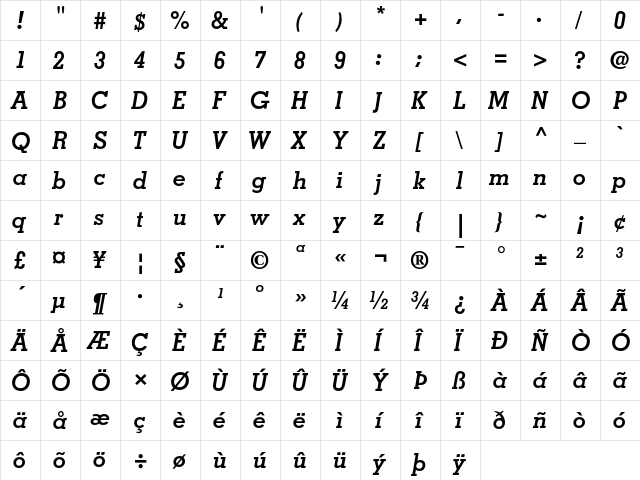
Memphis Bold Italic Font Preview
Design Context for Memphis Typeface
Memphis offers clean, dependable letterforms without strong stylistic allegiance, making it a practical choice for designers who need flexibility. The dynamic lean of this cut emphasises speed and emphasis in any layout. The heavy weight commands attention and anchors typographic hierarchies.
Pro Tip: Try Memphis for annotation and caption copy alongside an upright companion — the contrast in angle creates a dynamic but ordered typographic system.